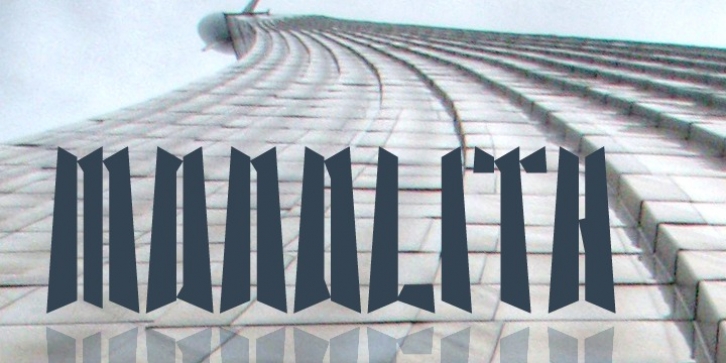
Konstantin Boldovskiy
Font with perspective for names, logotypes, titles, headers, topics etc.
Font includes only uppercase letters with two alternative designs for each letter.